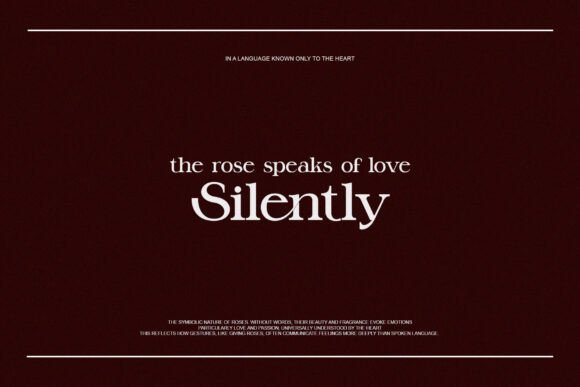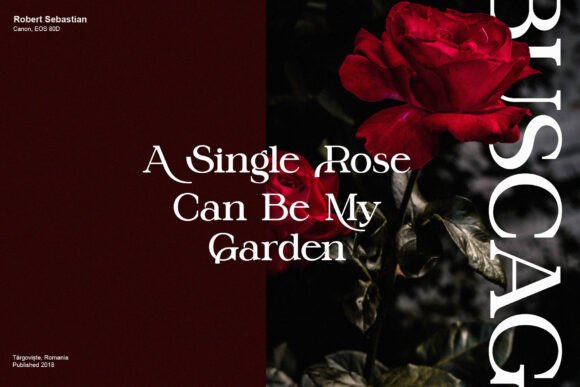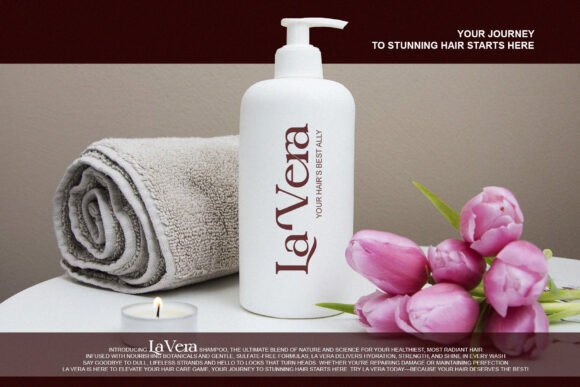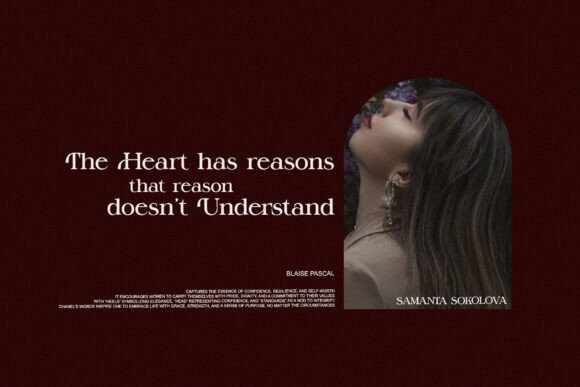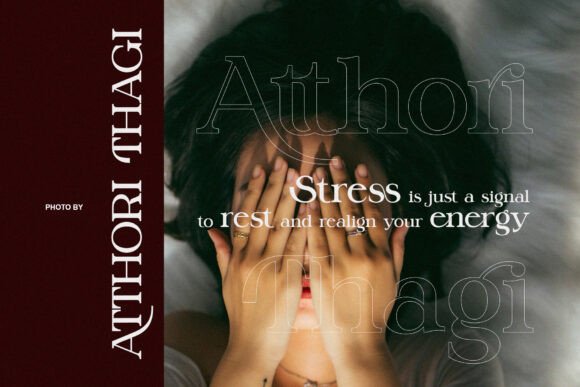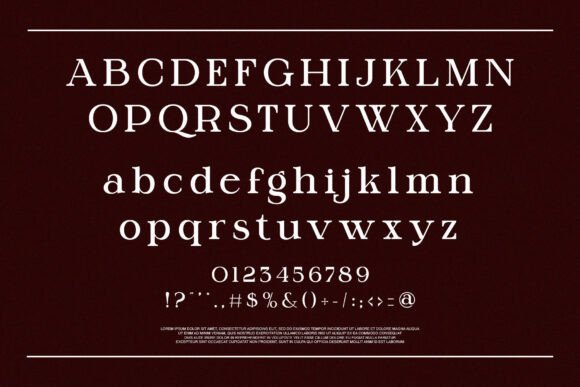
Introducing Billker Font: Elevate Your Designs with Elegance and Sophistication
In the world of typography, fonts play a crucial role in conveying the tone and personality of a brand or design. For those seeking a typeface that exudes elegance, sophistication, and a touch of natural beauty, look no further than the Billker font. This stunning ligature serif modern font is designed to evoke the freshness of blooms and the timeless charm of classic serif styles, making it perfect for upscale designs in florals, fashion, and high-end branding.
The Beauty of Billker Font
Billker is more than just a font; it’s an experience. With its bold yet refined ligatures, this elegant typeface stands out as a sophisticated and feminine addition to any design project. The font’s design is characterized by its soft and graceful presence, where every letter feels intentional and carefully crafted to elevate the aesthetic of any project it touches.
Key Features of Billker Font
- Elegant Ligature Serif Design: Billker boasts a modern ligature serif design that sets it apart from traditional serif fonts. Its ligatures add a touch of sophistication and fluidity to text, making it perfect for designs that require a bit of elegance.
- Bold yet Refined: The font strikes a perfect balance between boldness and refinement, making it versatile for various design applications, from headings and titles to body text.
- Feminine and Sophisticated: Billker’s design is undoubtedly feminine and sophisticated, making it an excellent choice for brands or designs that want to convey a sense of grace and style.
- Perfect for Upscale Designs: Whether you’re working on floral designs, fashion branding, or high-end product labels, Billker is the perfect companion to bring your vision to life with elegance and poise.
Applications of Billker Font
Billker’s versatility and elegance make it suitable for a wide range of design applications. Here are some of the areas where Billker truly shines:
- Floral Designs: For designs that feature flowers, botanicals, or any form of natural beauty, Billker adds a touch of elegance and freshness that complements the visual elements perfectly.
- Fashion Branding: In the fashion world, branding is everything. Billker’s sophisticated and modern design makes it an excellent choice for fashion brands looking to establish a refined and stylish identity.
- High-End Branding: For luxury products or services, a high-end brand font is crucial. Billker, with its classic yet modern appeal, is perfect for creating a brand image that exudes luxury and sophistication.
Why Choose Billker Font?
With so many fonts available, why should Billker be your choice? Here are a few compelling reasons:
- Unique Ligatures: Billker offers a unique set of ligatures that can transform ordinary text into a visually appealing and distinctive piece of design.
- Elegance and Versatility: The font combines elegance with versatility, making it suitable for a wide range of design projects.
- Easy to Read: Despite its elegance and sophistication, Billker remains highly legible, making it perfect for both headings and body text.
Bringing a touch of refinement and natural grace to your designs has never been easier, thanks to the Billker font. This elegant ligature serif modern font is not just a typeface; it’s a design statement that can elevate your projects to new heights of style and sophistication. Whether you’re a designer, a crafter, or a business looking to establish a strong brand identity, Billker is the perfect choice for those who appreciate the beauty of typography and the power of elegant design.
So, let Billker breathe elegance into your designs and watch them flourish with style and character. Experience the difference that a thoughtfully designed font can make in your work.